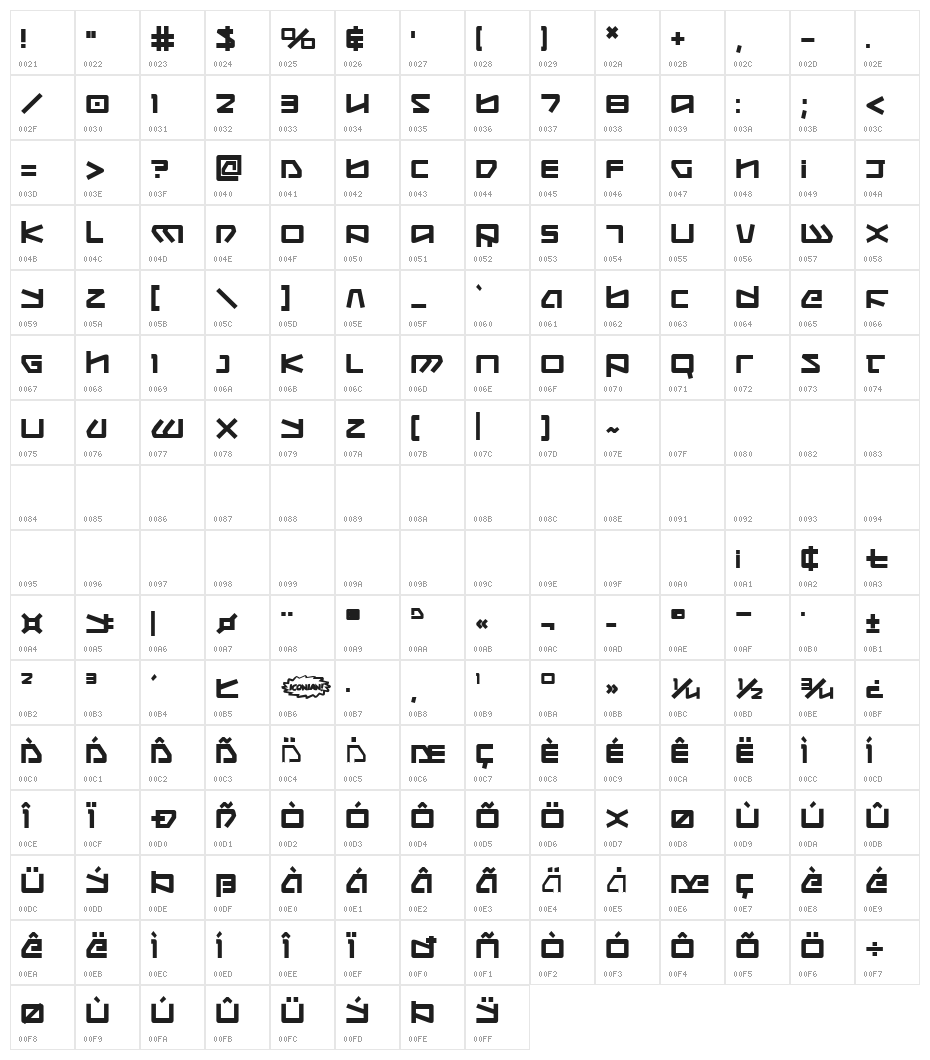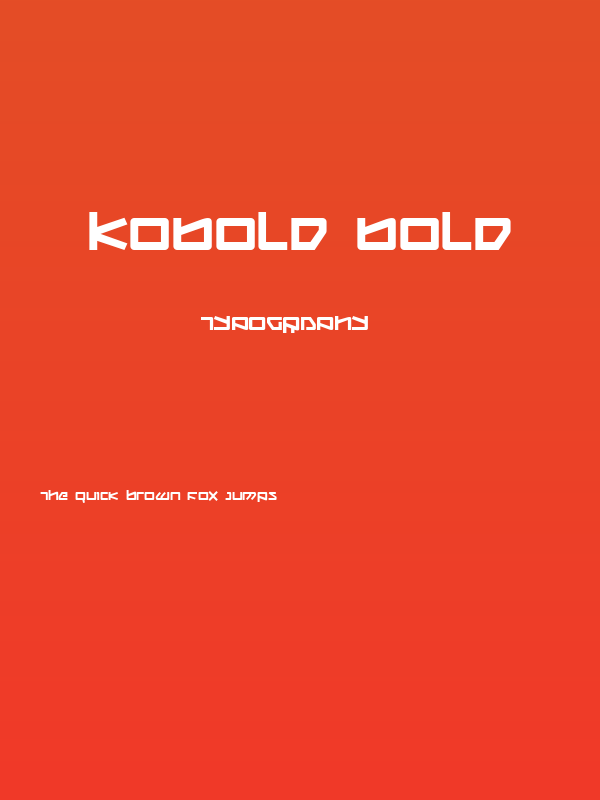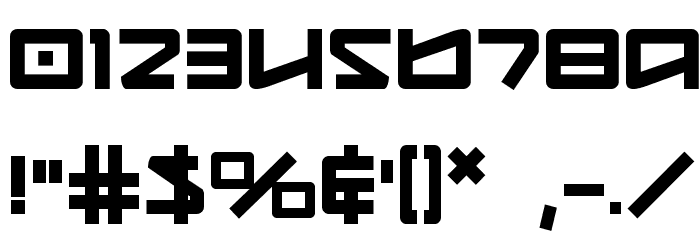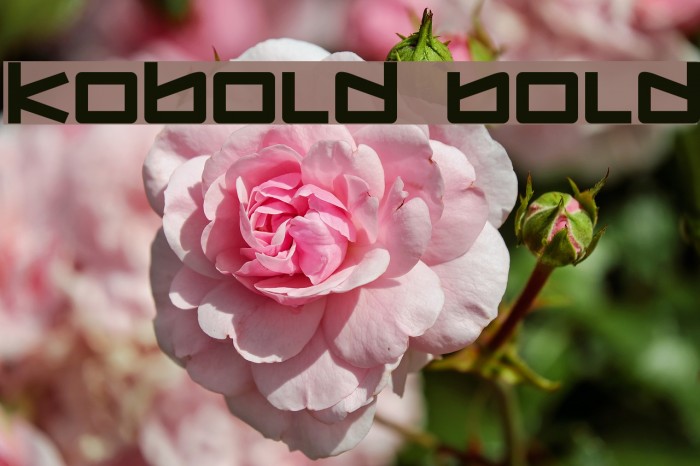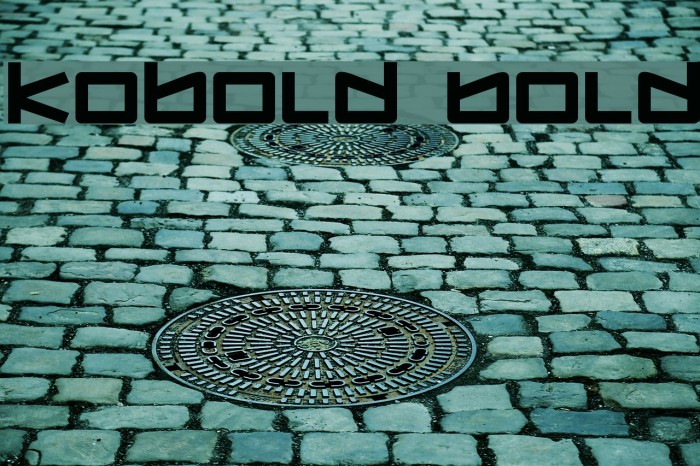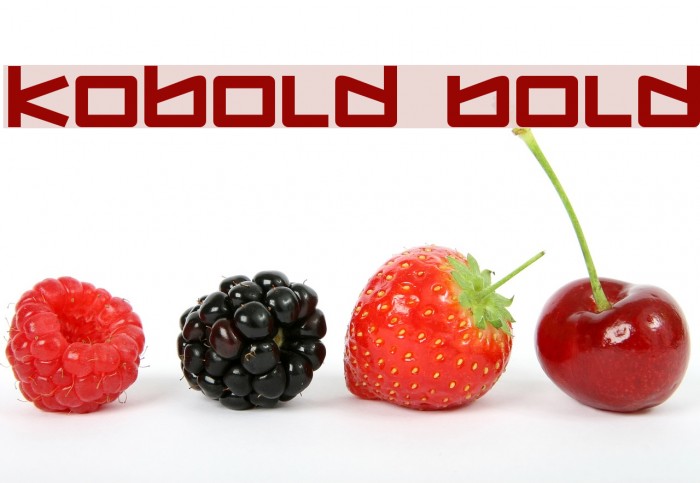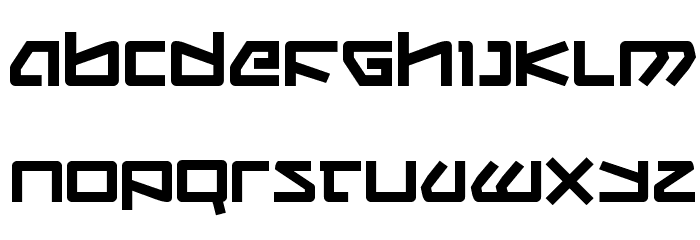
Kobold Bold Font
Kobold Bold Description
This font features a bold and geometric design with sharp angles and a futuristic aesthetic. The characters are constructed with consistent thickness, creating a uniform and cohesive look. The uppercase and lowercase letters maintain a similar style, with distinct angular cuts that give the font a modern and edgy appearance. The numerals and special characters follow the same design principles, ensuring a harmonious overall feel. The font's unique style makes it stand out, suitable for projects that require a strong visual impact.
| Proposed Projects | Ideal for sci-fi themed designs, video game titles, tech branding, and modern posters. |